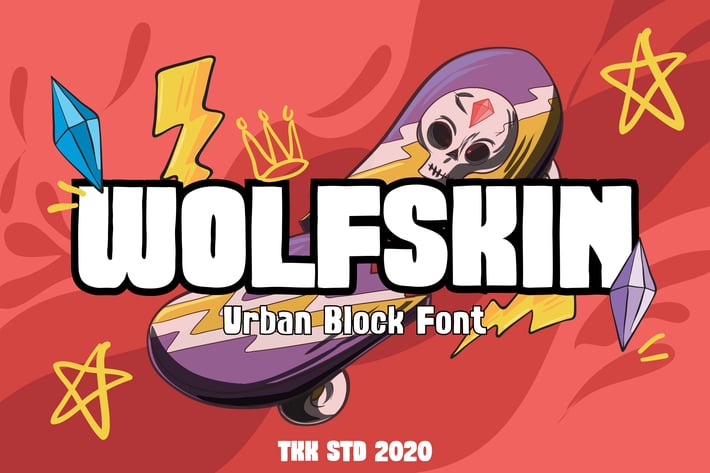
Wolfskin - Urban Block font
WOLFSKIN Urban Block Display is a bold urban-style block font designed for street branding and rebellious headlines. Featuring heavy contrast, sharp terminals, and geometric proportions, its strong, squared letterforms channel high-impact energy with a gritty edge. This expressive and commanding font brings an underground, riot-ready tone that’s perfect for loud design statements. WOLFSKIN feels raw, fearless, and authentic—tailor-made for streetwear drops, indie posters, music events, or protest art.
Whether you're crafting a street fashion logo, underground music poster, or urban social media campaign, WOLFSKIN amplifies the message. Its bold weight and geometric power demand attention, giving your words a strong, rebellious voice. Ideal for youth-centric designs, counterculture branding, and storytelling where impact is everything—this font leaves no room for whispers.
Key Features
Bold Expression for Urban Design:
- High contrast and geometric shape offer visual punch.
- Sharp edges create a tough, assertive tone.
- Suitable for all-caps display use with aggressive clarity.
Perfect for Disruptive Visuals:
- Grabs attention in posters, headlines, and digital covers.
- Designed to complement rebellious branding strategies.
- Evokes a streetwise attitude ideal for fashion, music, and editorial scenes.